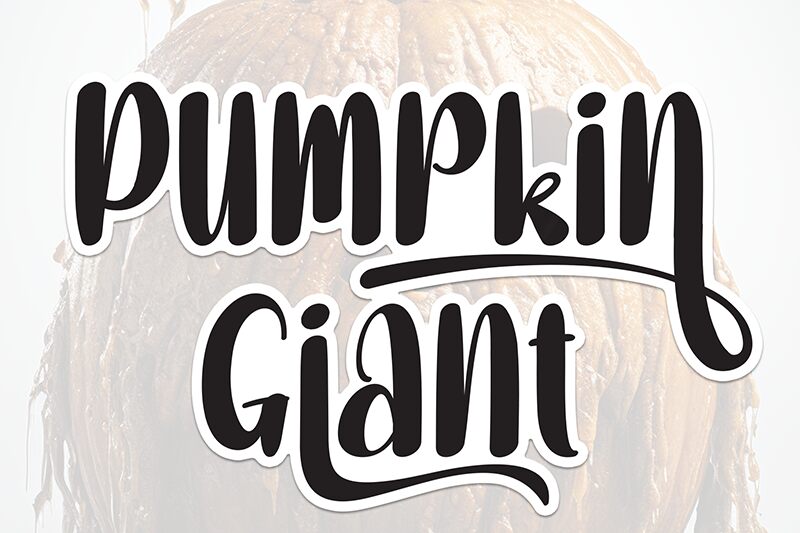
Pumpkin Giant
Pumpkin Giant font is a brush typeface created by Andi Moz with a whimsical and organic style. It combines fluid transitions, a modern aesthetic, and creative flair. The smooth condensed letters make it suitable for headlines or texts that are looking to grab the attention of the viewer at first sight.
Celebrate spooky festivities in style with this free font when you use it in Halloween invitations, flyers, greeting cards, costumes, pumpkins decorations (online and print), ads, posts on social media platforms such as Instagram or Facebook.